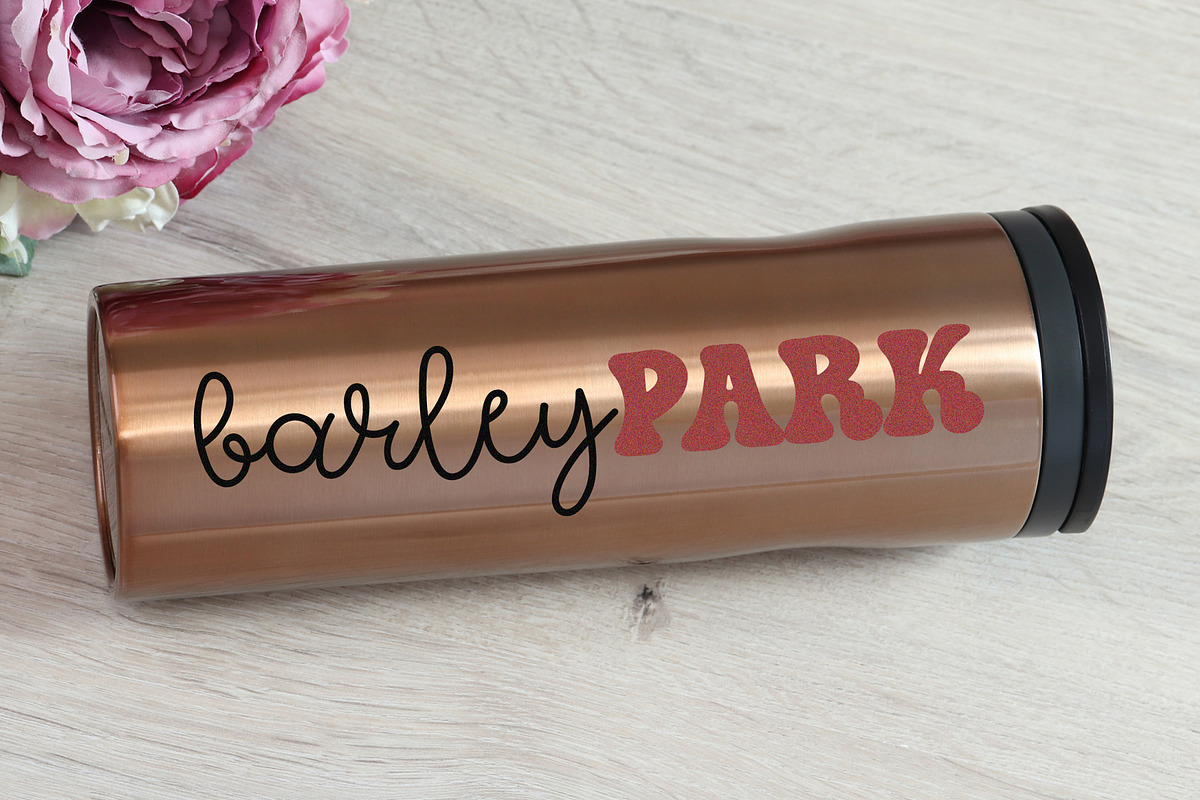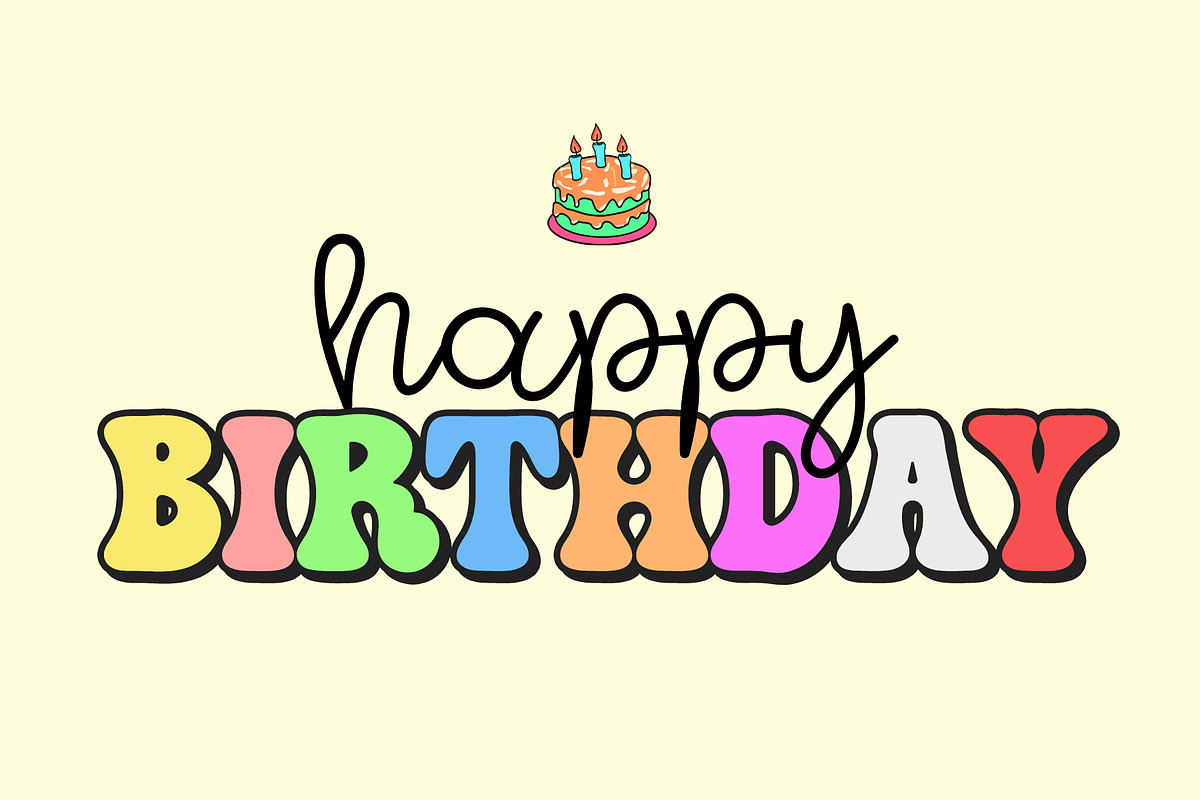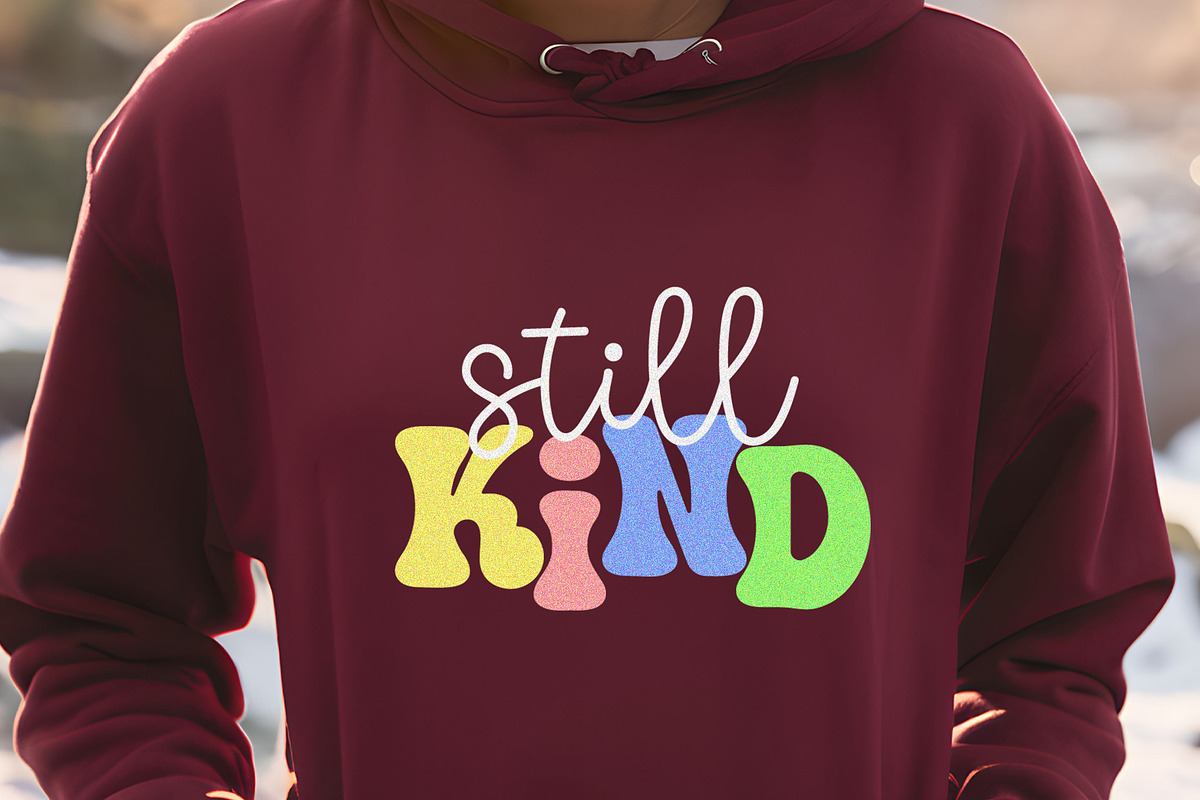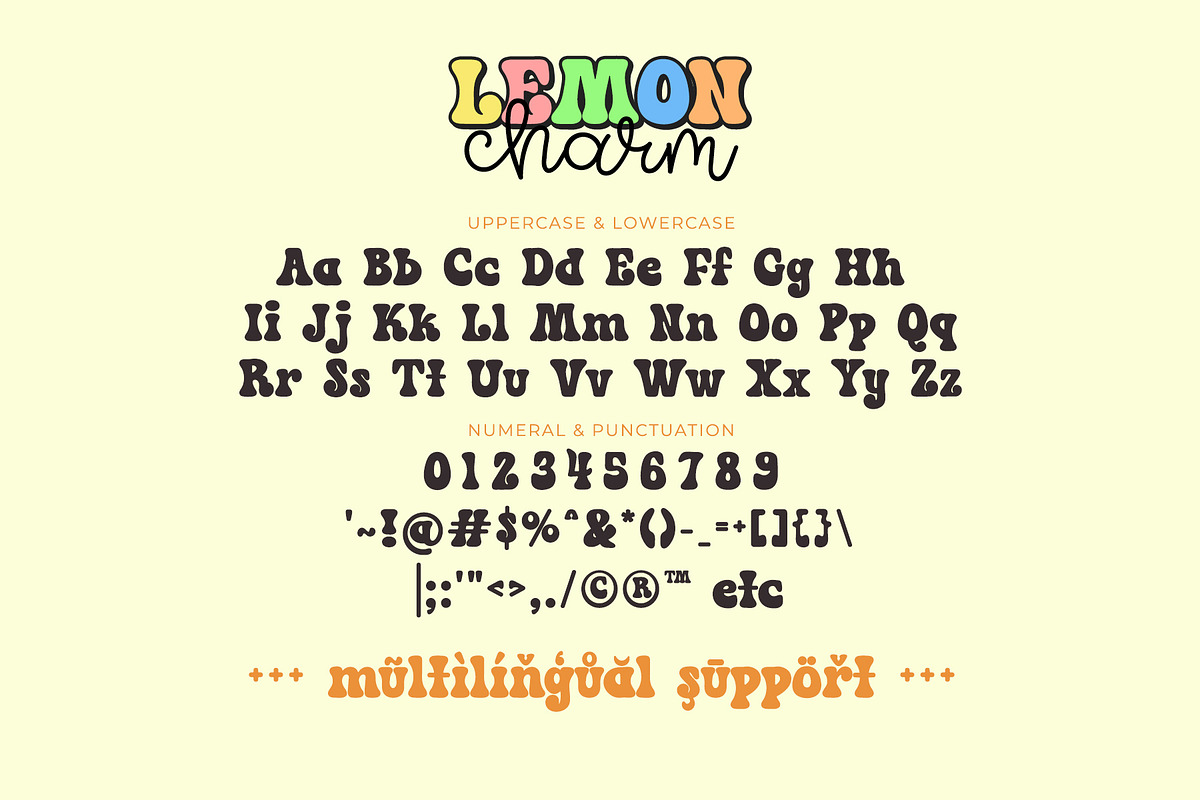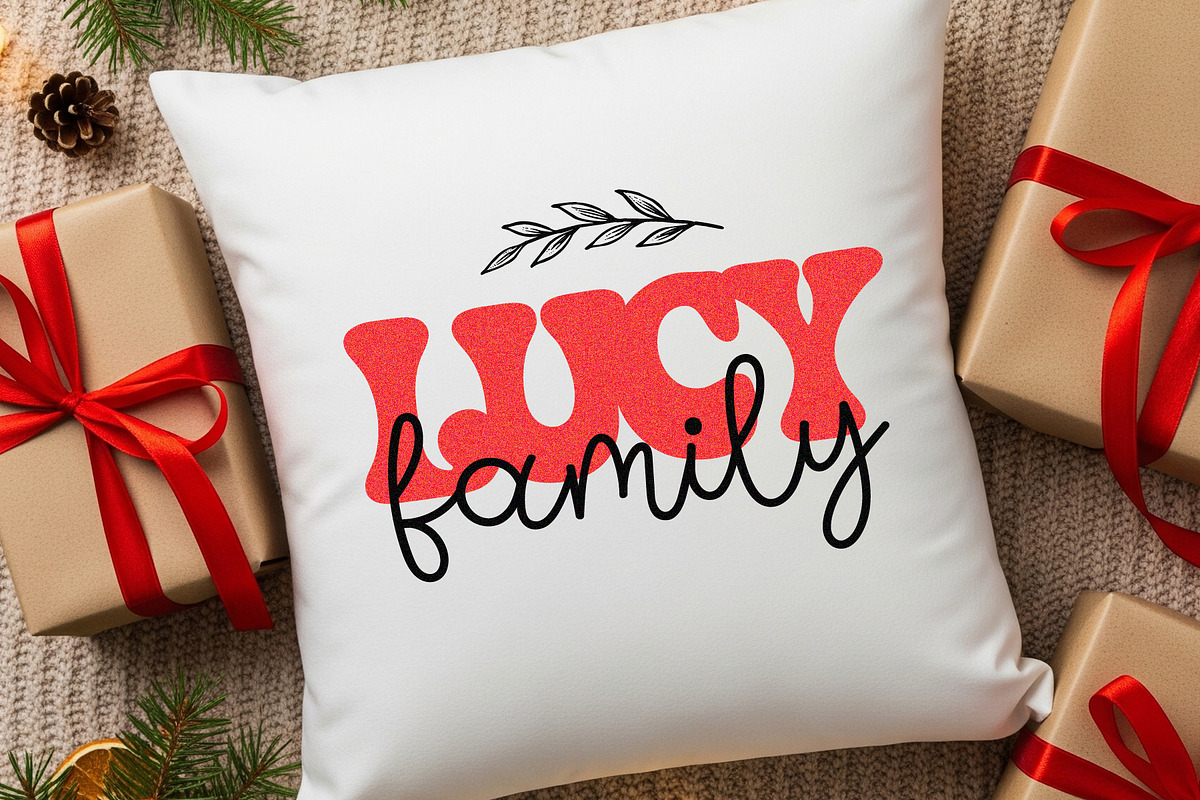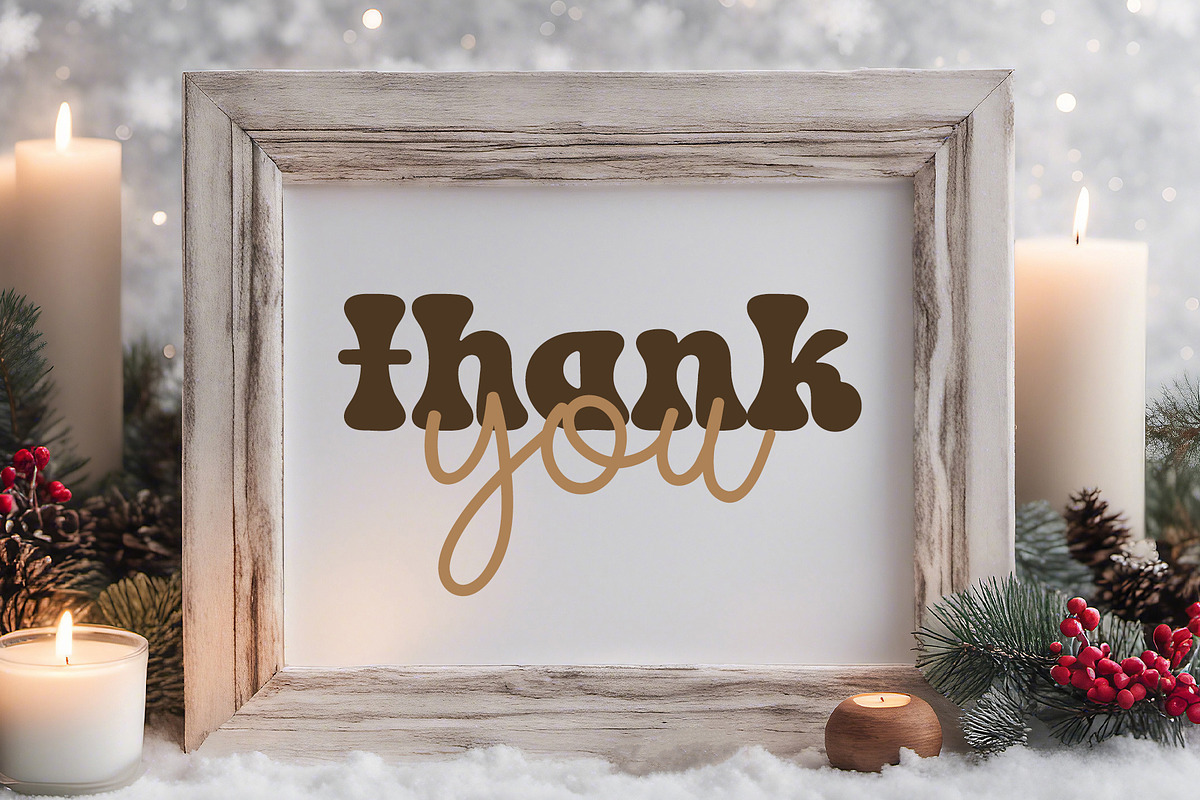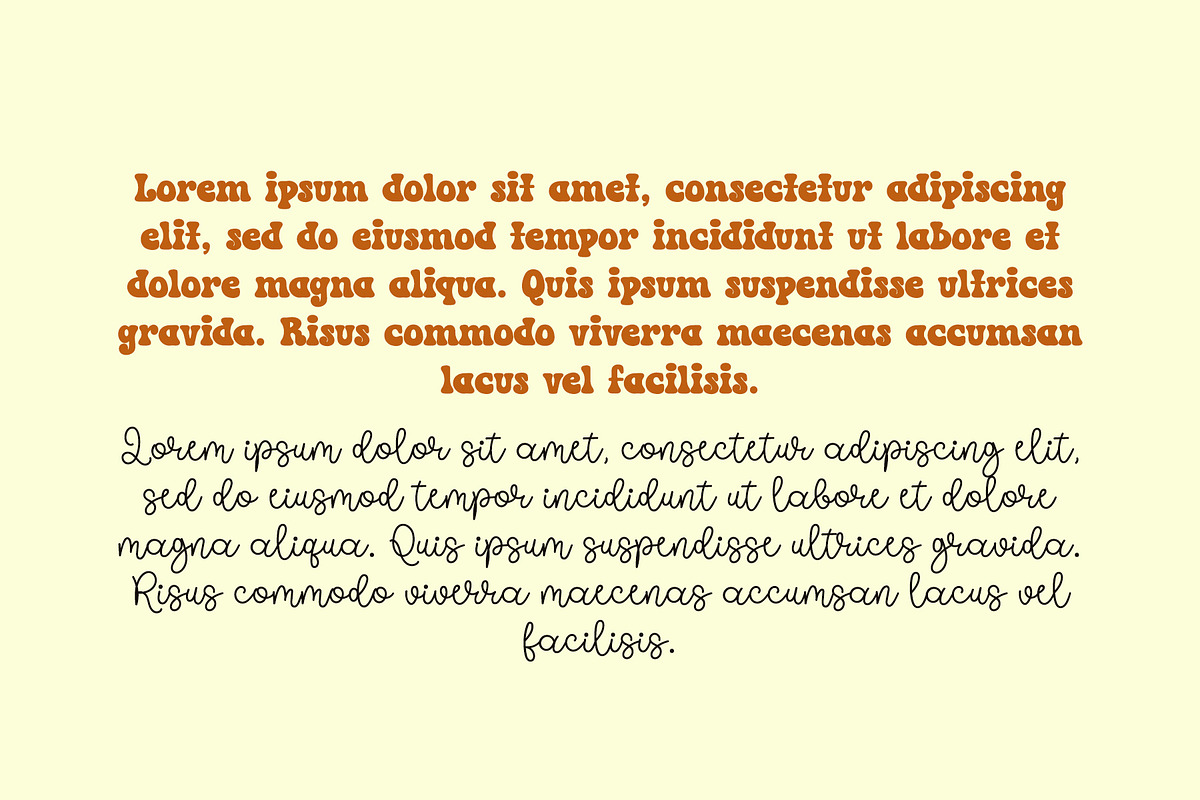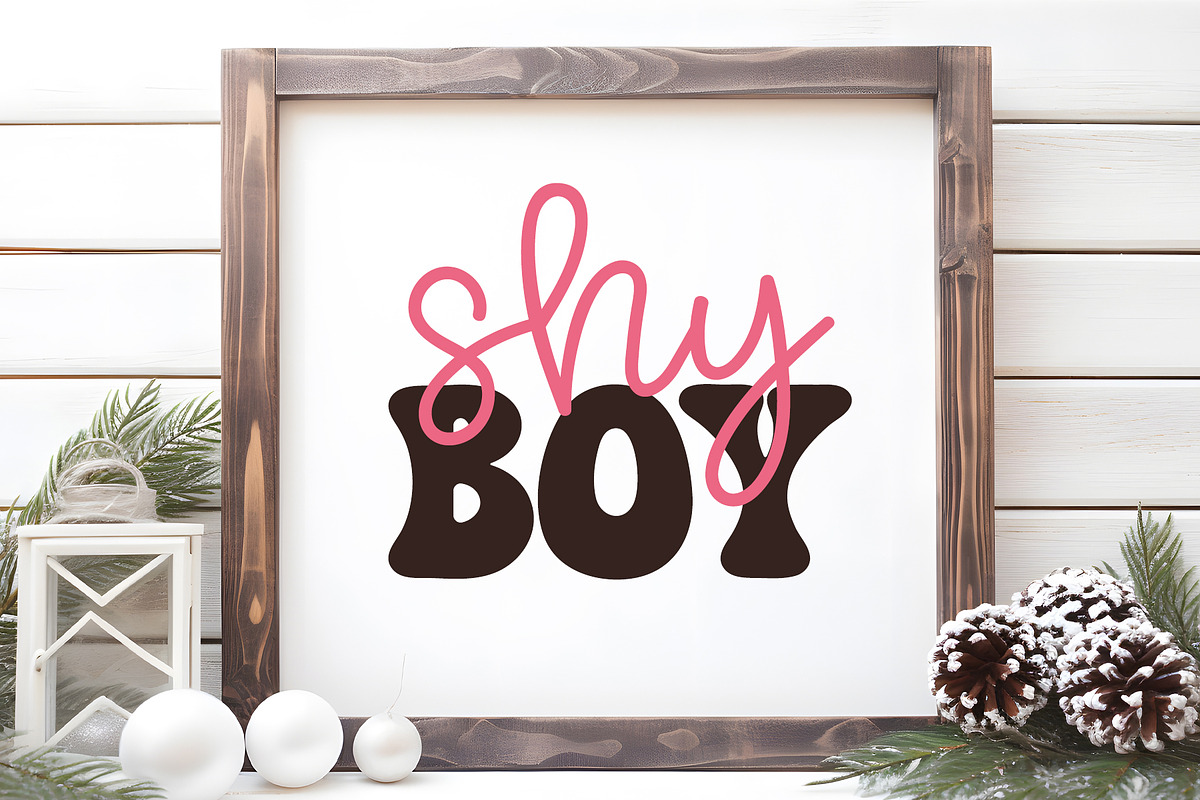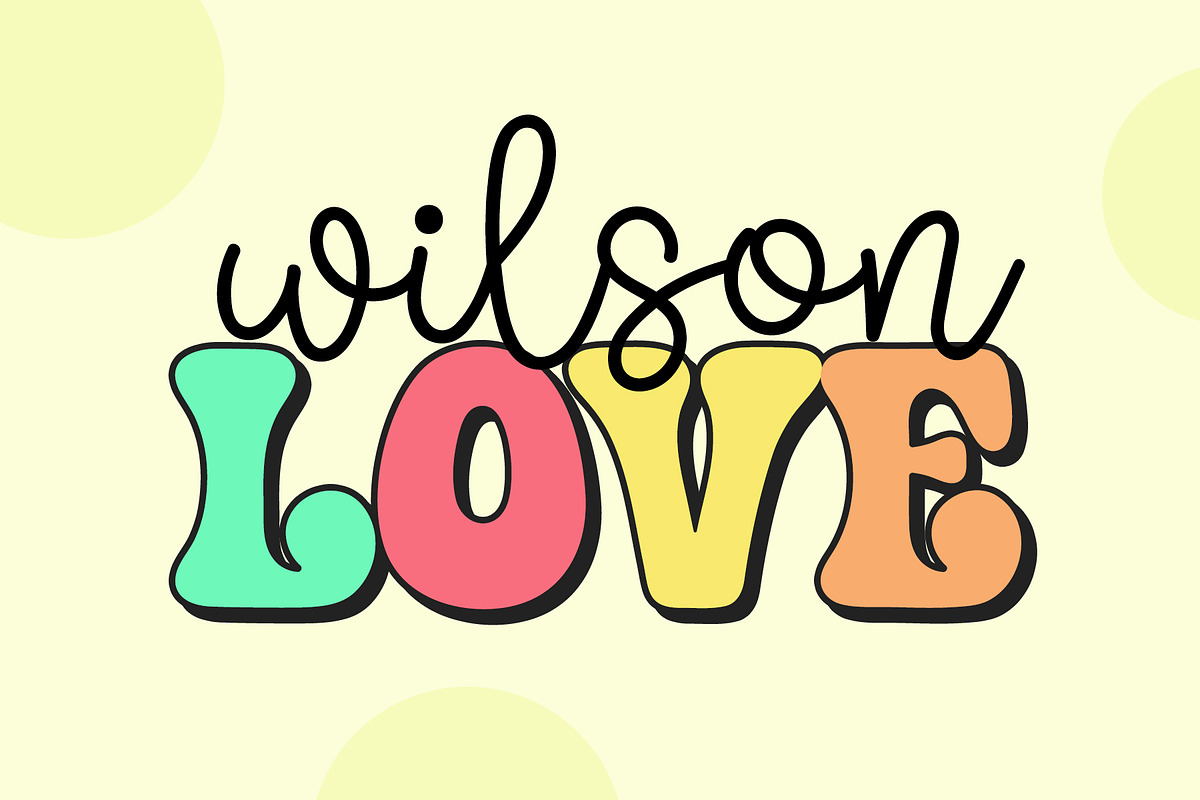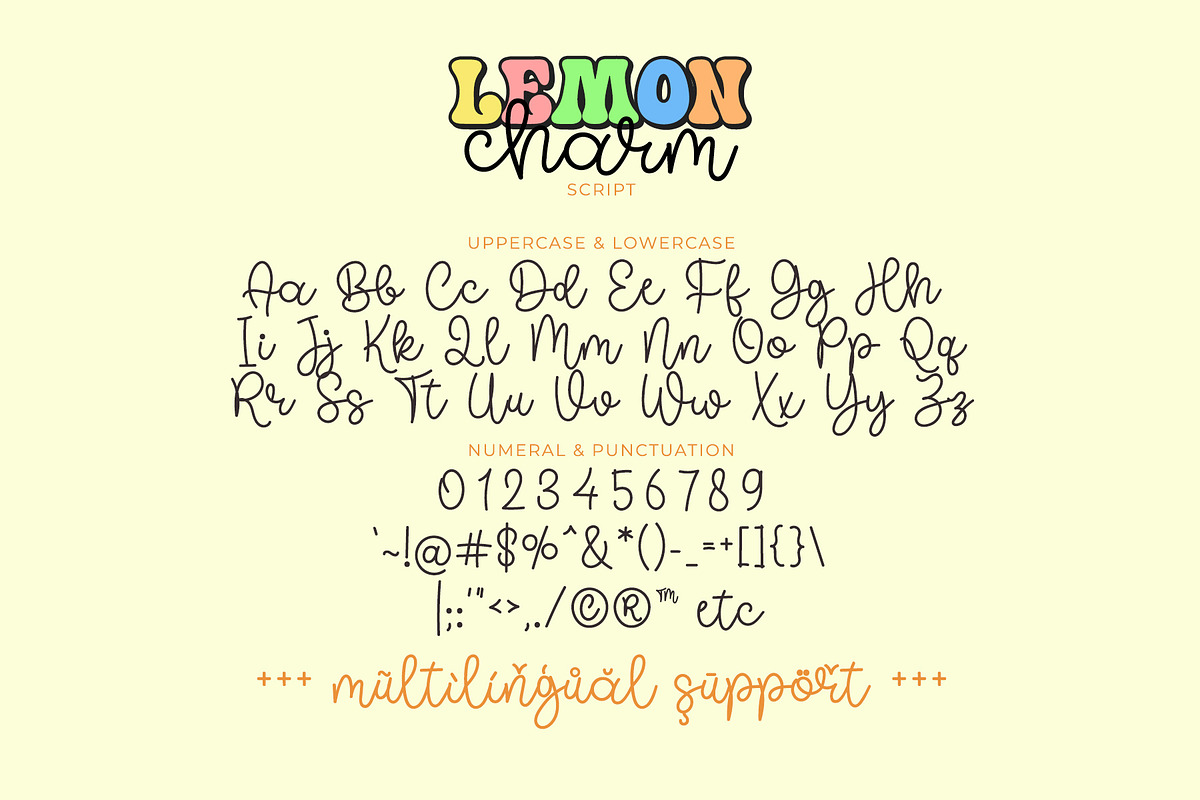
Lemon Charm - Cute Font Duo
Lemon Charm is cute font duo combining playful retro font and bouncy handwritten script font. This font represents festive, fun and modern.
Lemon Charm is pretty font for wide ranges of design with cute and lovely theme, such as t-shirt, birthday, logo, display, crafting, sticker, keychain, tumbler, sublimation, and many more.
- Lemon Charm and Lemon Charm Script
- Most Multilingual Accent